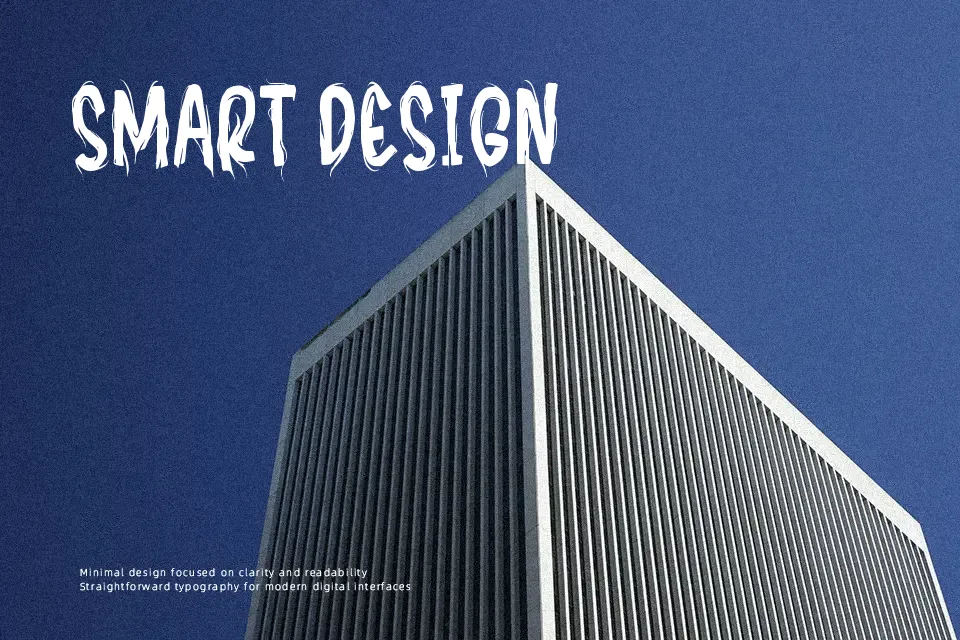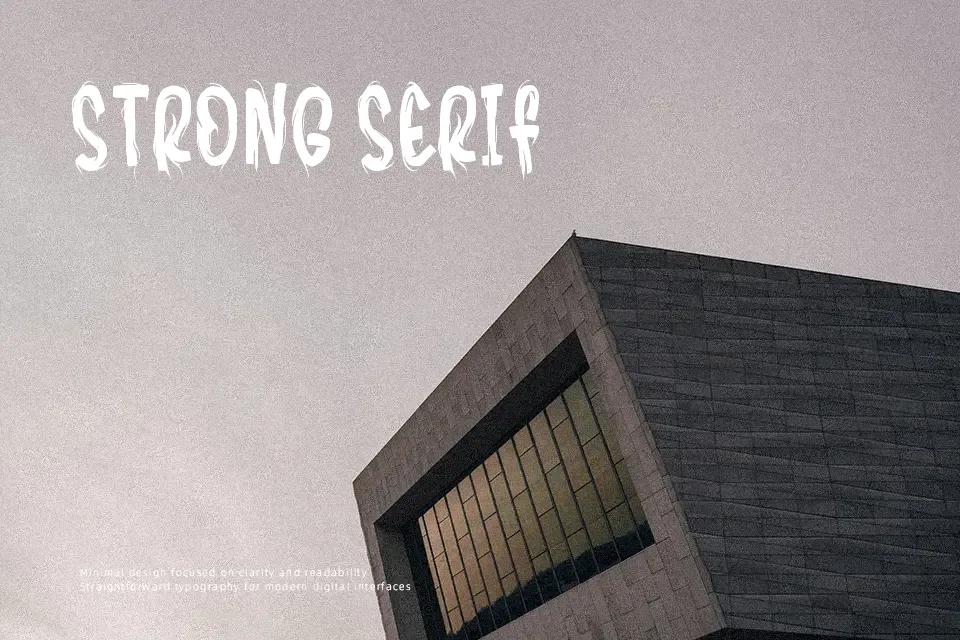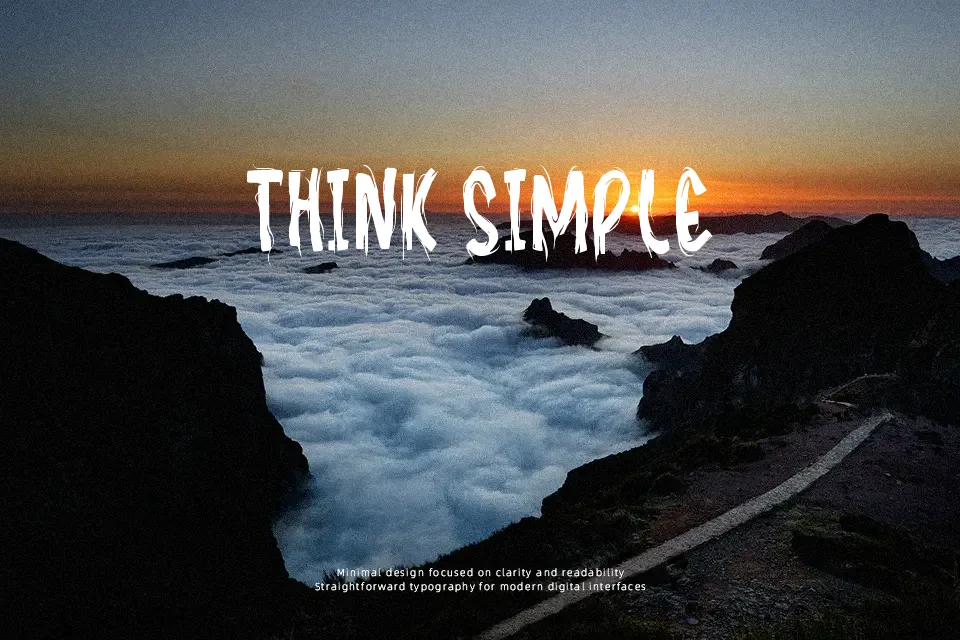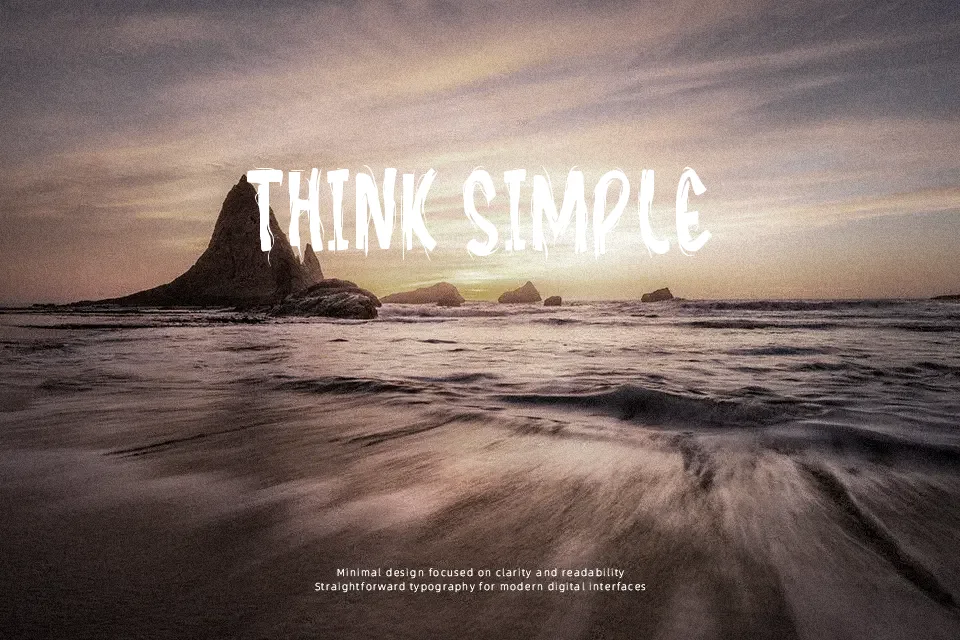
Charmer Horror Font
Charmer Horror Font features jagged, frenetic strokes and sharp, irregular outlines that simulate manic handwriting etched under extreme duress. Each character displays inconsistent stem weights and angular terminals, creating an unpredictable visual rhythm across headlines. Proportions vary noticeably between individual glyphs, while open, slightly loose character spacing prevents neighboring erratic strokes from colliding. The letterforms deliver striking legibility in large display applications, instantly communicating suspense across title cards, cover artwork, and teaser promotions. However, the abrasive details and asymmetric geometry reduce comfort during extended reading. Dense paragraphs and small caption text quickly become illegible due to the intense stroke turbulence.
Best For: psychological thriller posters, Halloween event flyers, horror video game titles, dark album artwork
Not Ideal For: continuous body text, mobile application interfaces, technical documentation, small packaging labels
Perfect for film, gaming, and halloween, with a dark and brush style.